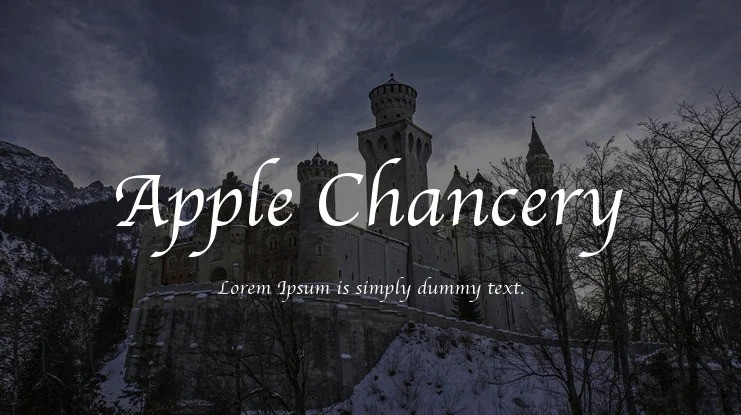
Apple Chancery Font
Here we are introducing you to the Apple Chancery font that was designed by Bigelow & Holmes Inc. This typeface is great for creating a logo for your creative marketing. While the styles of fancy capital letters may be traced lower back to maven pro font, Renner’s sketches for the lower case have been quirky, compelled, and at instances barely recognizable as letters.
The Bauer production house takes the responsibility of interpreted the design of this typeface, and they start casting with some bizarre shapes that work great with raleway font, and also with that they are maintaining the basic belief of letters.